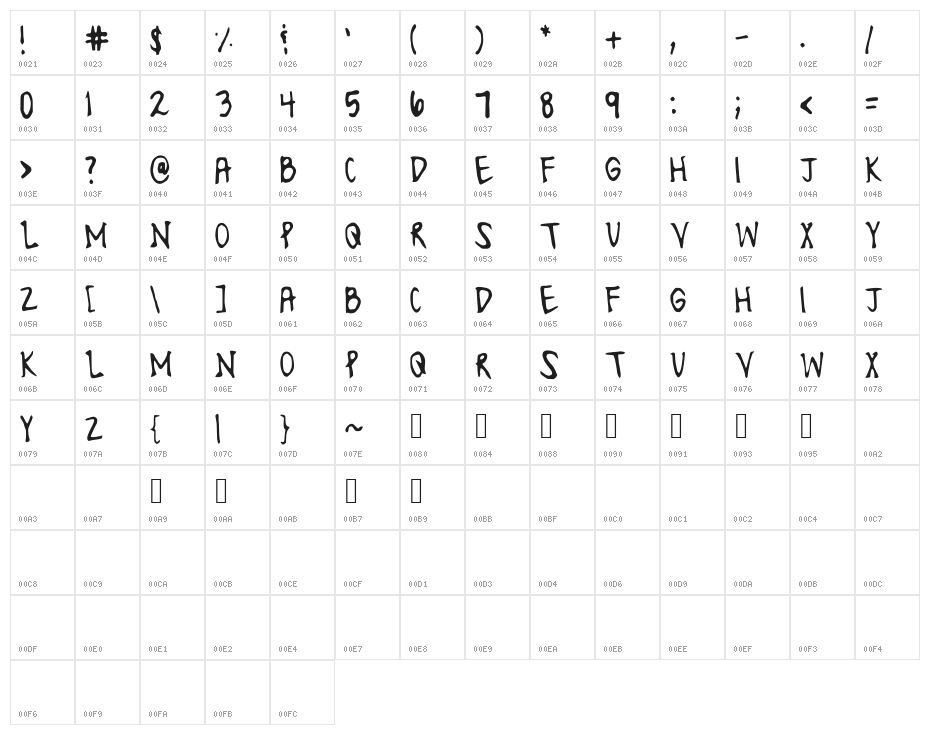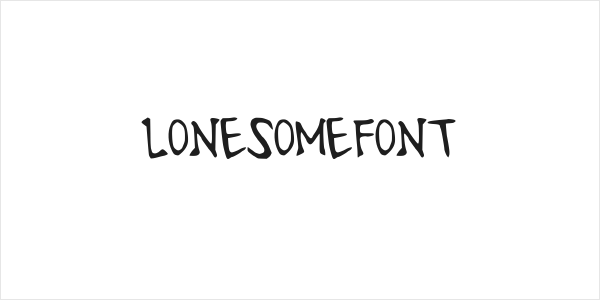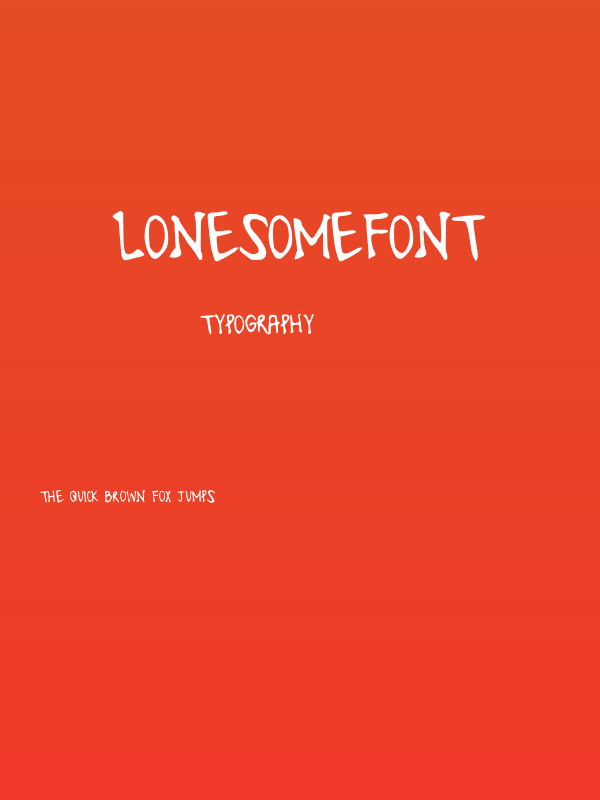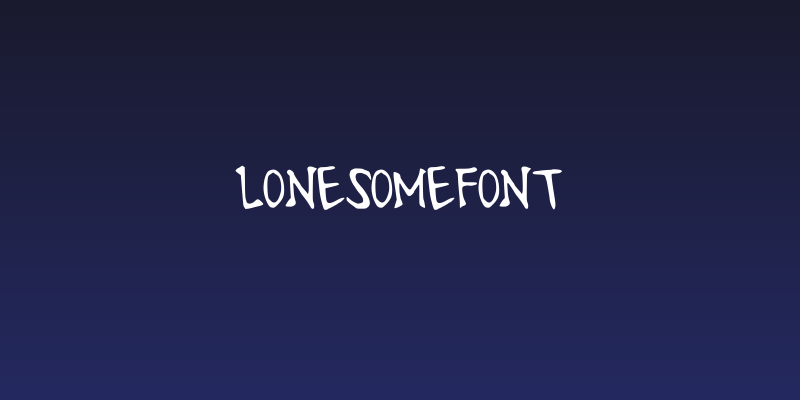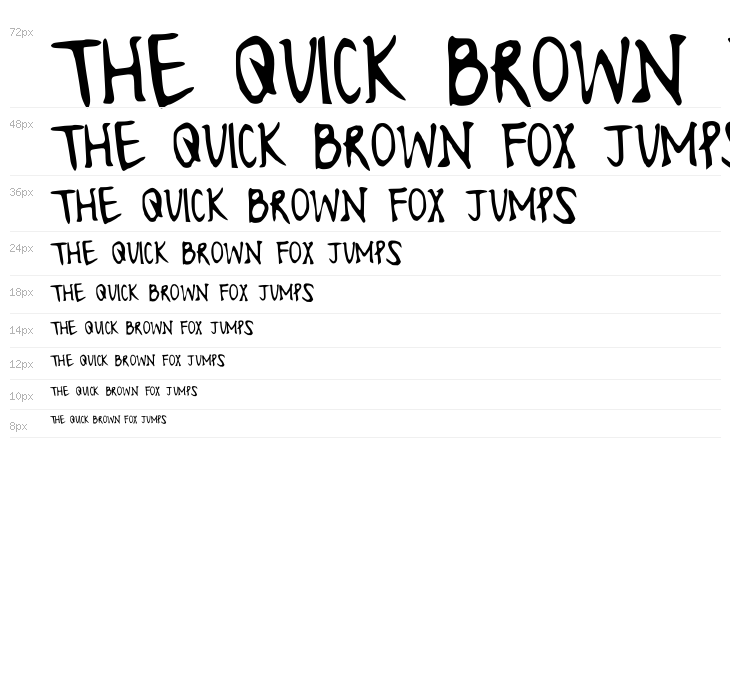
LonesomeFont Font
LonesomeFont Description
This font features a bold and playful handwritten style, characterized by its irregular and dynamic letterforms. The strokes are thick and slightly uneven, giving it a casual and informal appearance. The letters have a whimsical quality, with some characters leaning or curving in unexpected ways, adding to its charm. The numbers and special characters maintain the same lively and energetic style, making it suitable for creative and fun design projects. Its unique personality makes it stand out, perfect for capturing attention in a variety of contexts.
| Proposed Projects | Ideal for children's books, playful branding, greeting cards, and creative posters. |